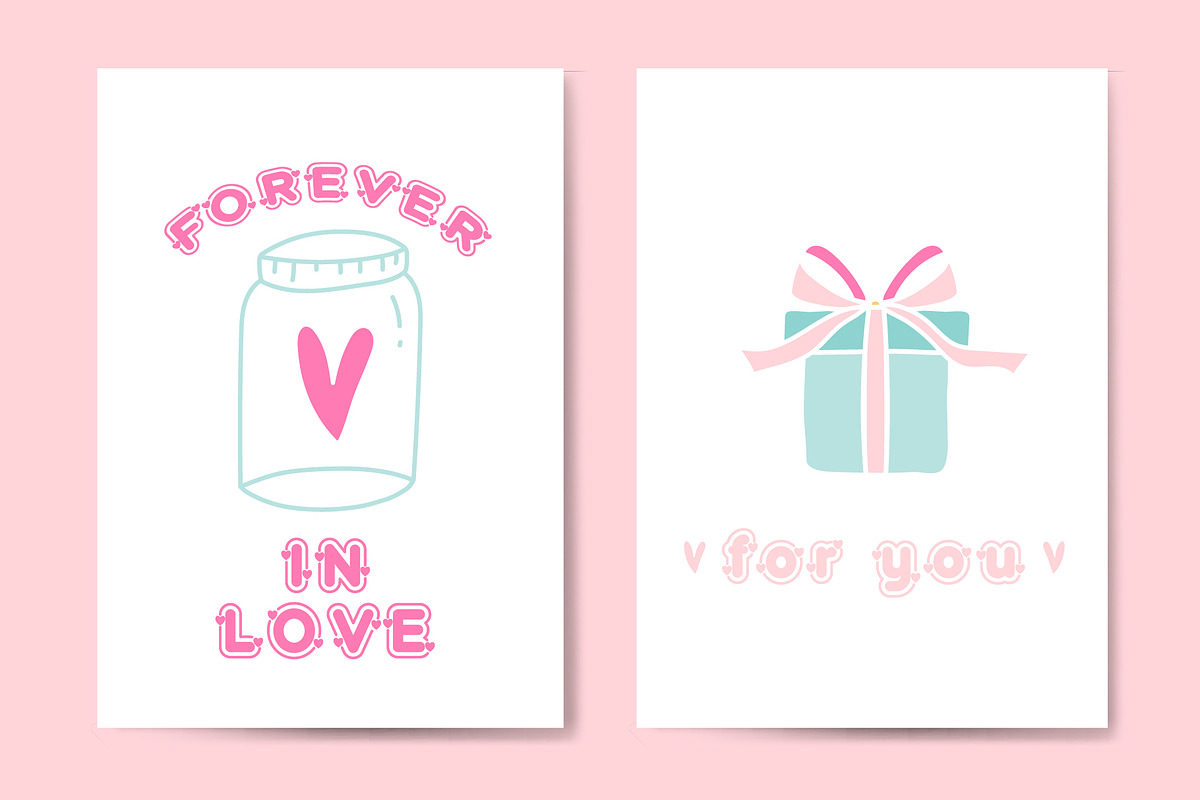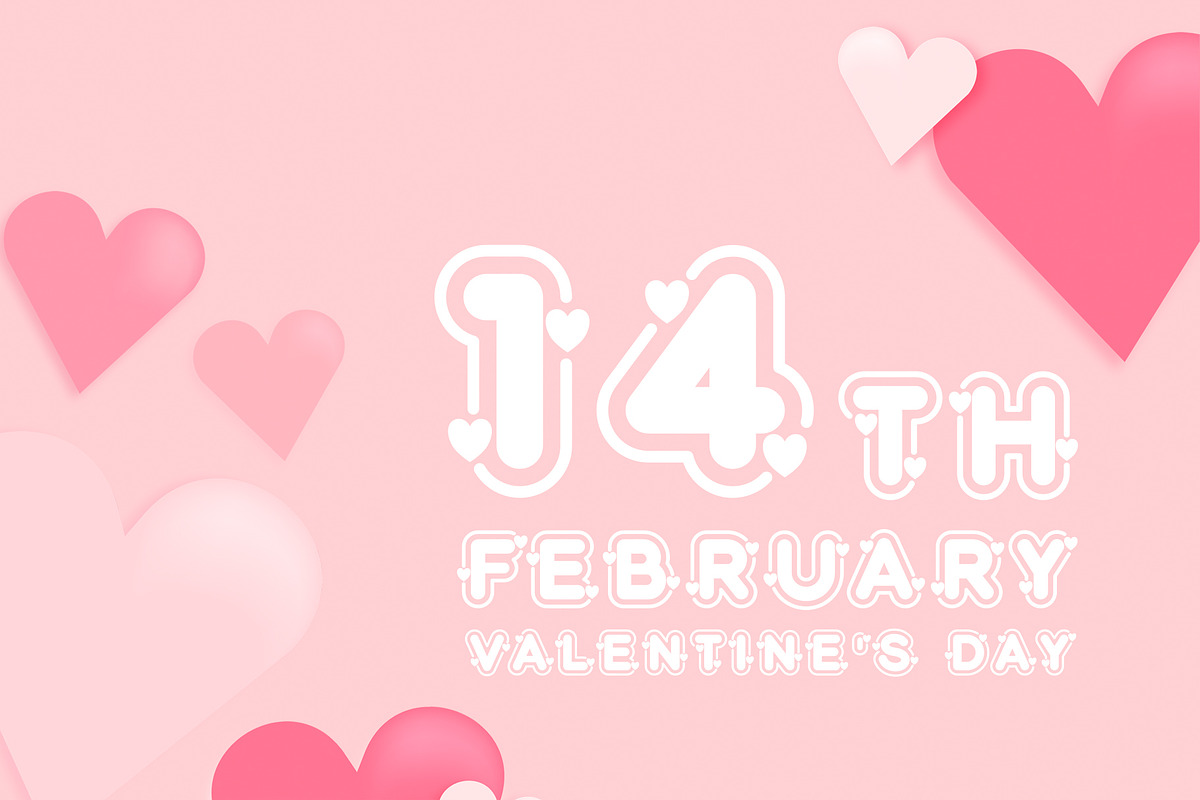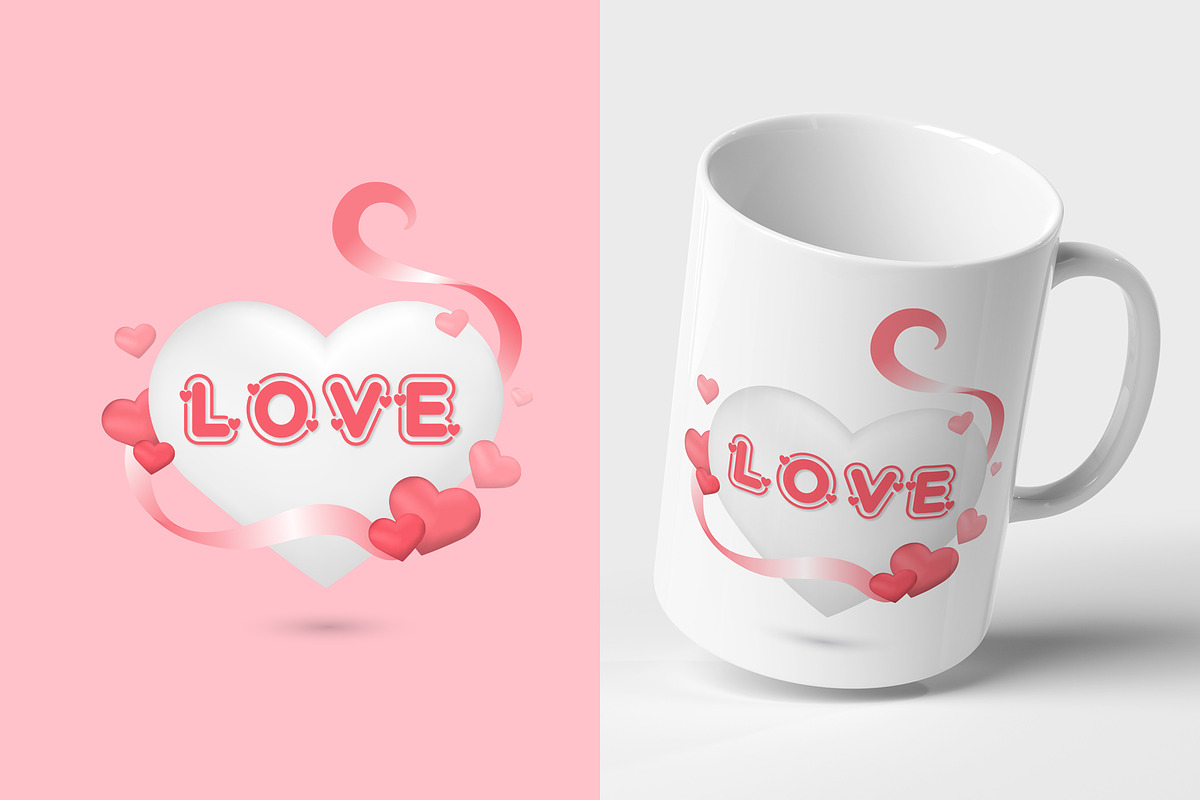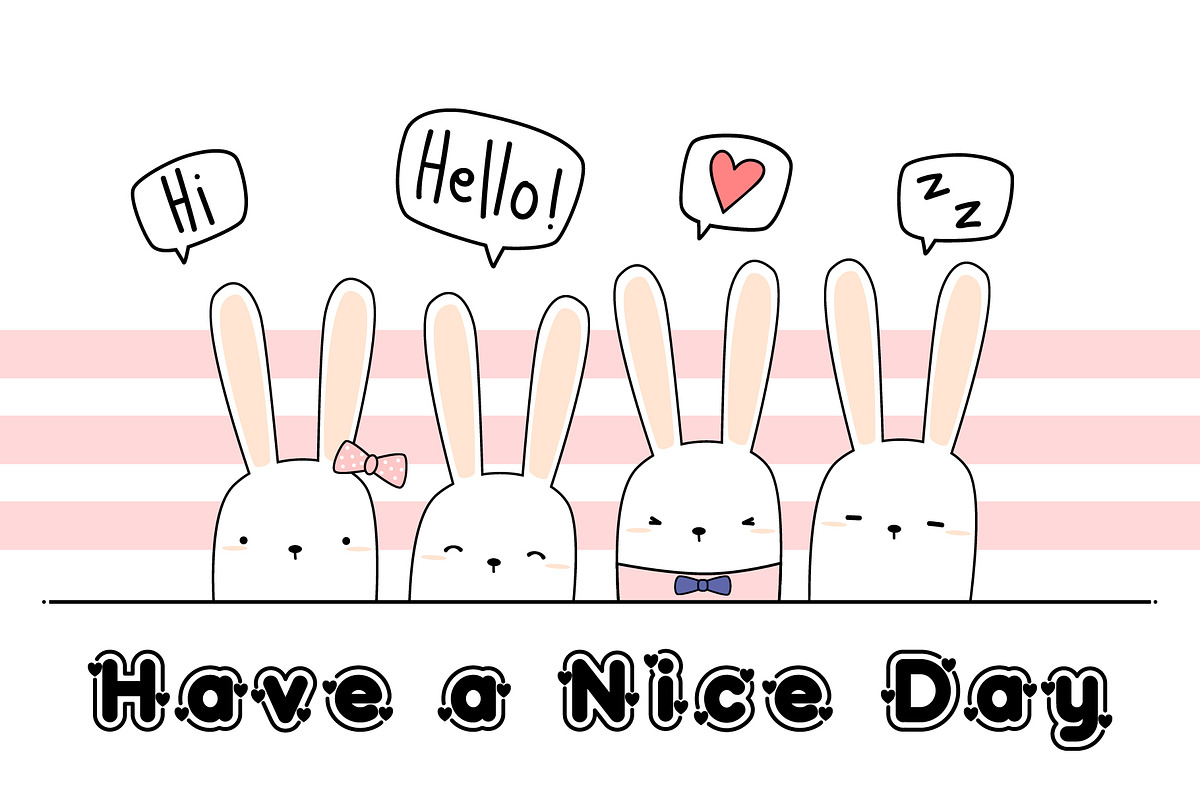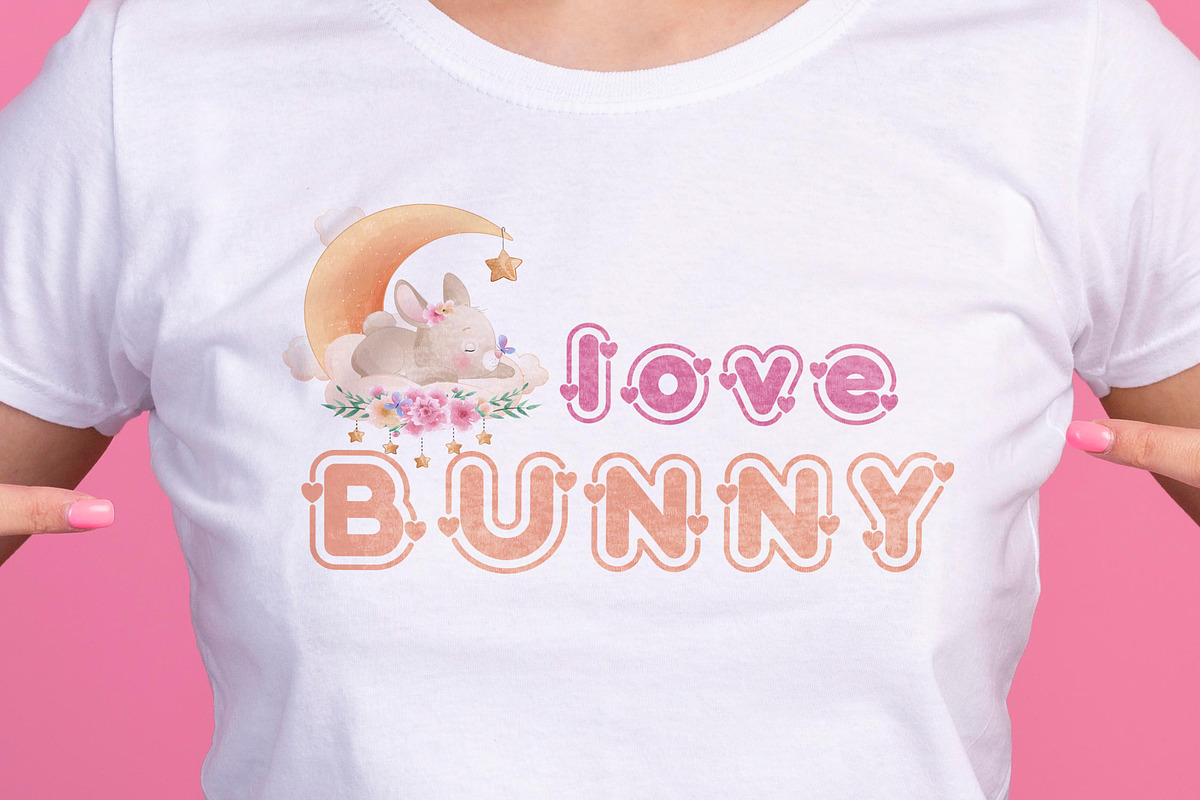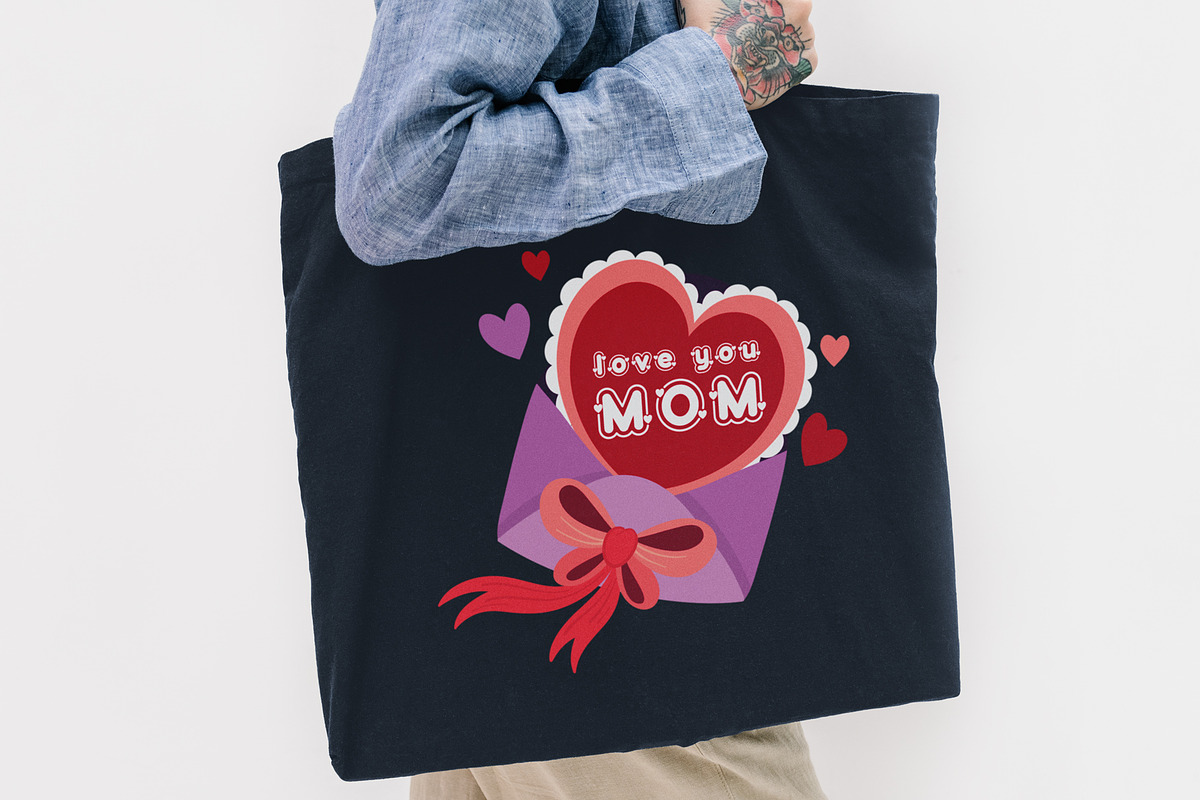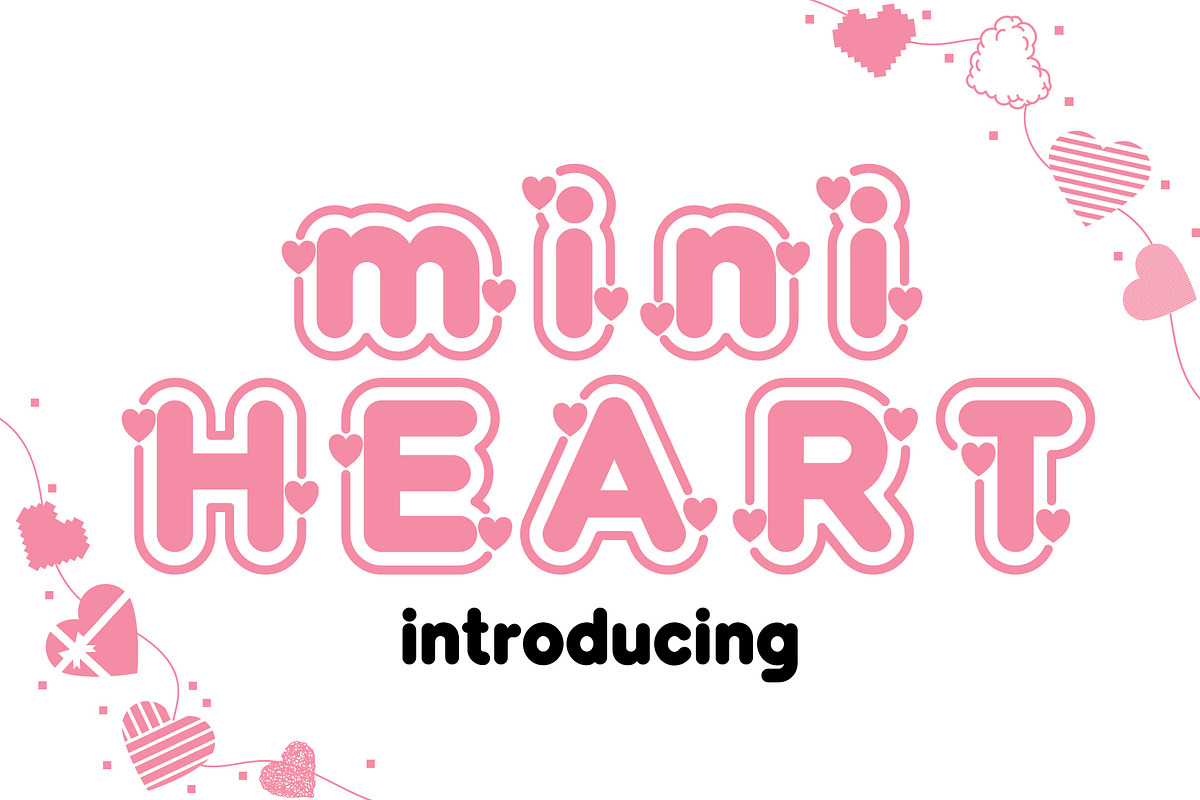
Mini Heart Decorative Fonts
Mini Heart is a decorative font that is cute, bright, and fun. It is perfect for Valentine’s or Mother’s Day designs, especially when combined with bright and pastel colors. Add this beautiful font to each of your creative ideas, and notice how it makes them stand out!